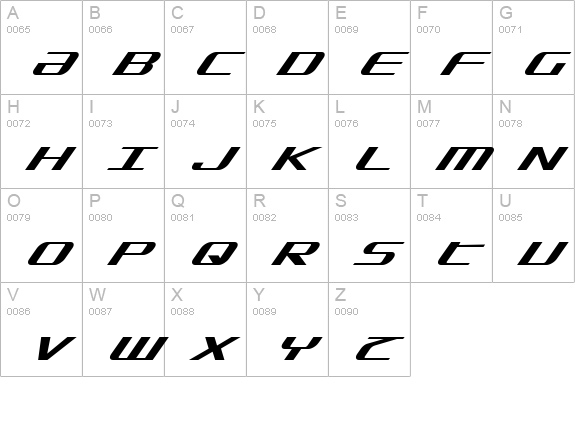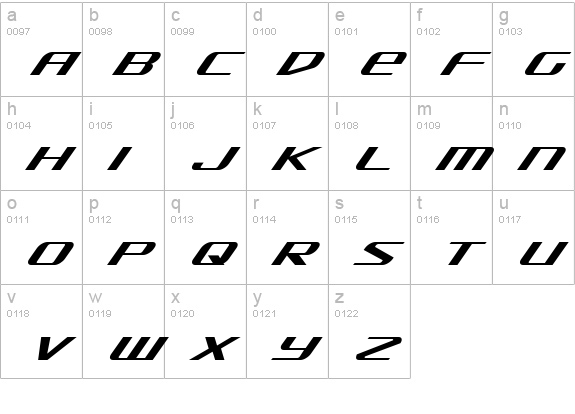
SDF Super Italic is a distinctive, italic variant in the SDF typeface family \xE2\x80\x94 well suited to design and typography projects.
Introducing the stunning and stylish SDF Super Italic font, designed to make a bold statement with its sleek and elegant appearance. This font exudes sophistication and modernity, perfect for any project that requires a touch of sophistication and flair. Its unique italic design adds a touch of drama and sophistication to any text, making it stand out from the crowd. And the best part? SDF Super Italic font is available for free download at FontsMarket.com! Now you can elevate your designs with this premium font without breaking the bank. Whether you're creating a logo, designing a poster, or crafting a wedding invitation, SDF Super Italic font is sure to make a lasting impression. Download it today and add a touch of elegance to your projects.